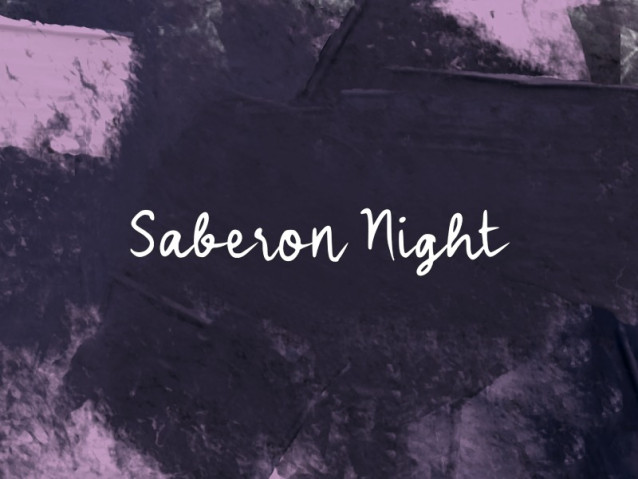
Saberon Night Font
Saberon Night Font is a simple and friendly handwritten font. Its natural and unique style makes it incredibly fitting to a large pool of designs. The only limit is your imagination!